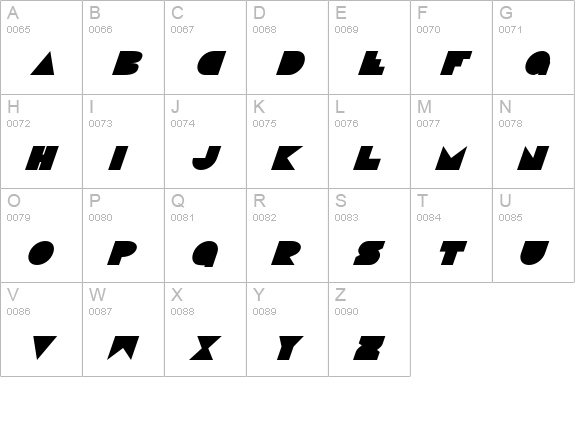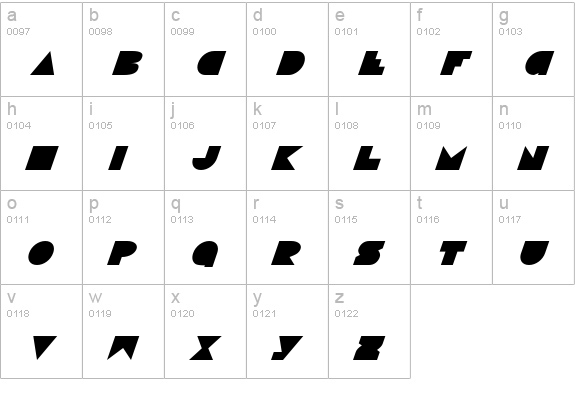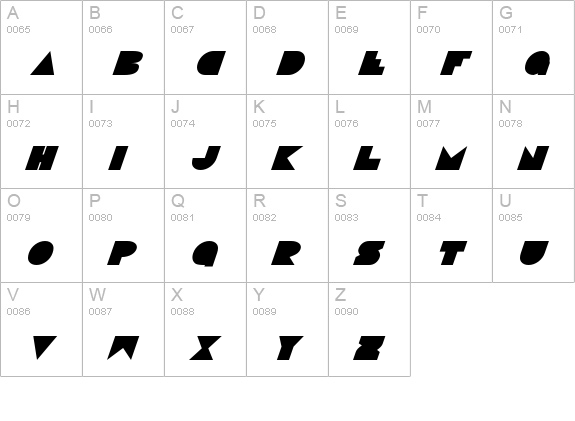
Disco Deck Italic is a distinctive, italic variant in the Disco typeface family \xE2\x80\x94 well suited to design and typography projects.
Disco Deck Italic font is a vibrant and energetic typeface that captures the essence of 1970s disco culture with its stylish and dynamic design. The italicized letterforms exude a sense of movement and rhythm, making it perfect for projects that require a touch of retro flair. This font is not only visually striking but also versatile, making it suitable for a wide range of design applications including posters, album covers, party invitations, and more. Its bold and playful aesthetic is sure to grab attention and add a fun and lively touch to any project. Best of all, Disco Deck Italic font is available for free download at FontsMarket.com, making it easily accessible for designers looking to add a bit of disco-inspired charm to their work. Don't miss out on this free and fantastic font that will surely make your designs pop with personality and style.